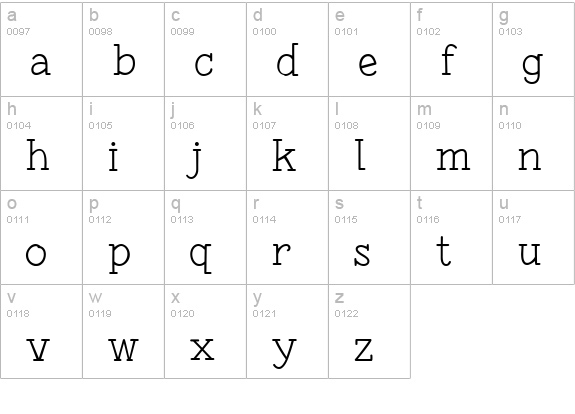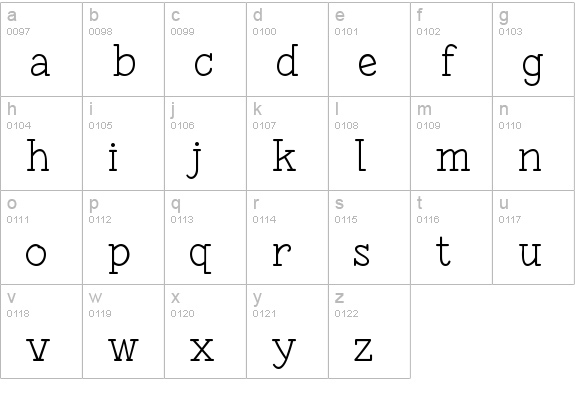
Fonesia Light is a refined, elegant variant in the Fonesia typeface family \xE2\x80\x94 well suited to elegant body text, refined sub-headings, and luxury branding.
Introducing Fonesia Light, a stunning font that effortlessly combines elegance and versatility. This font is perfect for a wide range of design projects, from branding and logos to invitations and headlines. Fonesia Light features a clean and modern aesthetic, with its slim letterforms and subtle curves, making it a truly timeless choice. But what sets Fonesia Light apart is not just its exceptional design, but also its accessibility. This font is available for free, allowing designers and creatives of all levels to bring their visions to life without breaking the bank. You can easily download Fonesia Light at FontsMarket.com, where it is freely available alongside a wide variety of other high-quality fonts. With Fonesia Light, you have the freedom to explore your creativity, knowing that you have a reliable and stylish font at your fingertips. Whether you're designing a sleek logo for a startup or crafting elegant wedding invitations, Fonesia Light will effortlessly elevate your projects with its refined and sophisticated look. Don't miss out on this incredible opportunity to enhance your design arsenal with Fonesia Light. Download it for free at FontsMarket.com and unlock a world of possibilities for your next creative endeavor.